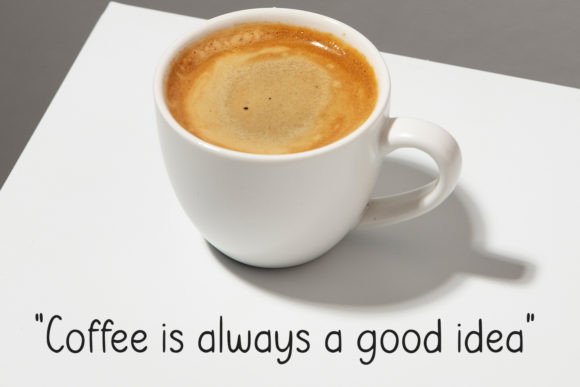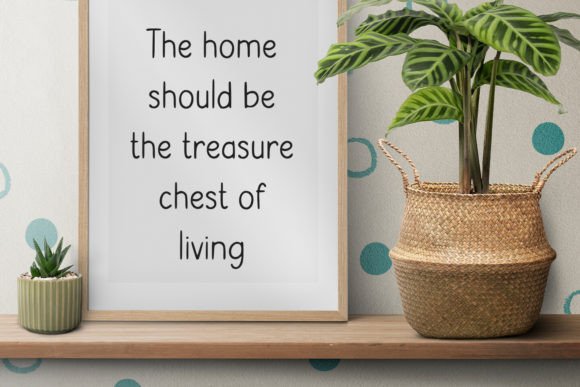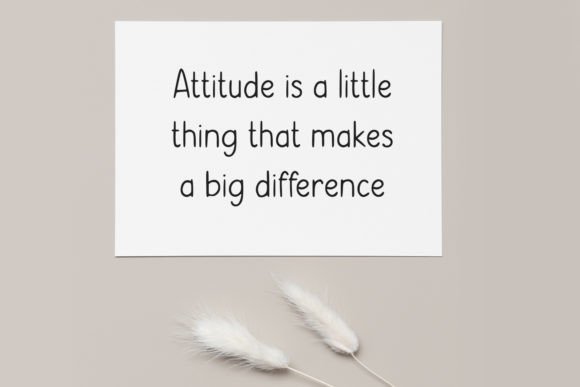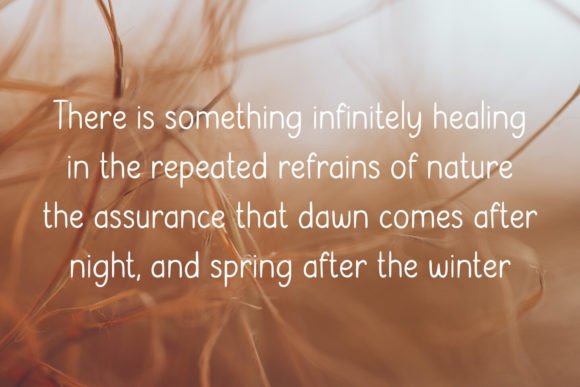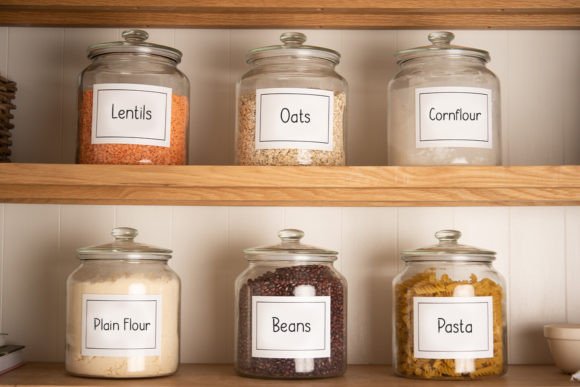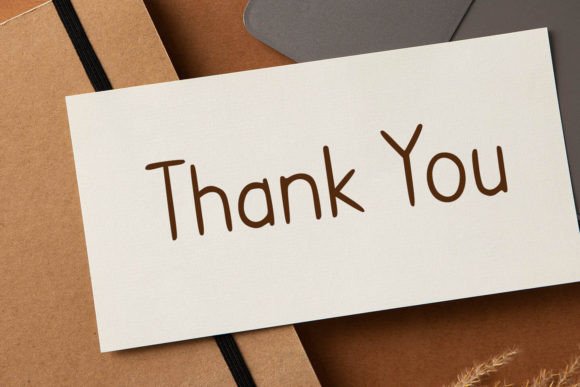
Introduction to Serathus Font
As a designer, there’s nothing quite like the thrill of bringing a creative project to life. You’ve spent hours brainstorming, sketching, and refining your ideas – and finally, it’s time to choose the perfect font to bring your vision to the world. That’s where the Serathus Font comes in, a sleek and versatile sans-serif font that’s as comfortable on digital screens as it is on printed materials.
With its clean lines and friendly character, the Serathus Font is the ultimate design resource for anyone looking to create a clear and approachable message. Whether you’re designing a user interface, crafting informative signage, or building a modern brand, this high-quality font is sure to make your project stand out. And the best part? It’s available for free download, making it an accessible resource for designers of all levels.
Key Features of Serathus Font
- High-quality, unique font design perfect for creative projects and design resources.
- Designed at a high resolution of 300 DPI, ensuring crisp and clear typography in print and digital applications.
- Supports a wide range of languages, making it a versatile font for international design projects.
Honest Review: Serathus Font
As a designer, I’m always on the lookout for high-quality design resources to elevate my creative projects. The Serathus Font is one such find that has caught my attention.
- ✨ Unique and stylish design aesthetic that sets it apart from more generic fonts.
- ✨ High quality and crisp typography, making it perfect for digital and print media.
- ✨ Transparent background, allowing for seamless integration with any design.
- ⚠️ Limited font weights and styles may not be suitable for complex or large-scale projects.
- ⚠️ Not ideal for use in body text, as it may be too decorative for paragraphs.
Overall, I’m impressed with the Serathus Font’s potential and would recommend it for use in creative projects where a unique and stylish font is required. Its high quality and free download make it a valuable addition to any design resource library.
Tips for Getting the Most Out of Serathus Font
For the best results, use the Serathus Font in conjunction with a transparent background to create a high-quality design. Experiment with different font sizes and styles to find the perfect look for your creative project.
The Serathus Font is a versatile design resource that can be used in a variety of creative projects, including logos, graphics, and presentations. Its high-quality design makes it a popular choice among designers.